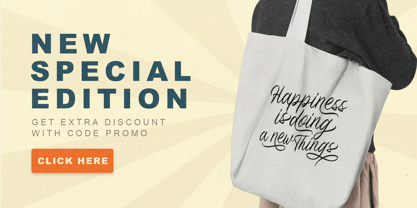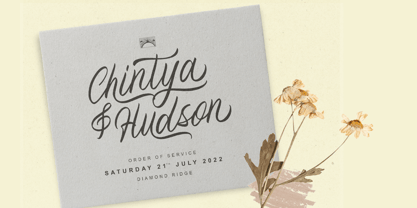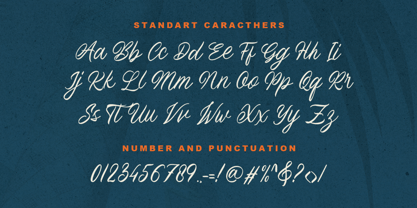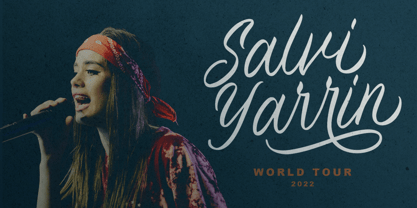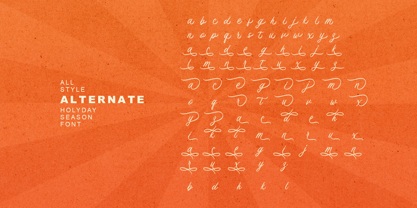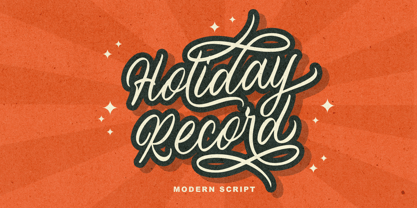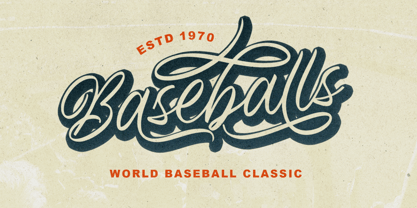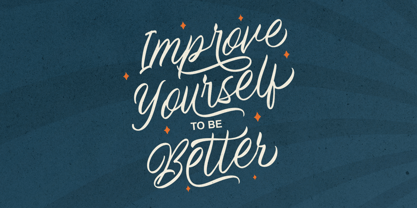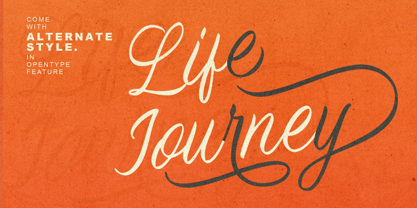
Holiday Record
by Bale Type
The Holiday Record Font Family was designed by Sarid Ezra, Dzikrul Aulia and published by Bale Type. Holiday Record contains 1 styles.
Holiday Record is a hand lettering script font. You can use this font for every project. Suitable for branding logo, hand lettering, or apparel design. With bunch of alternates, you can make your lettering quotes more attractive and lovely. This font also support multilingual, number and symbol.
Designers: Sarid Ezra, Dzikrul Aulia
Publisher: Bale Type
Foundry: Bale Type